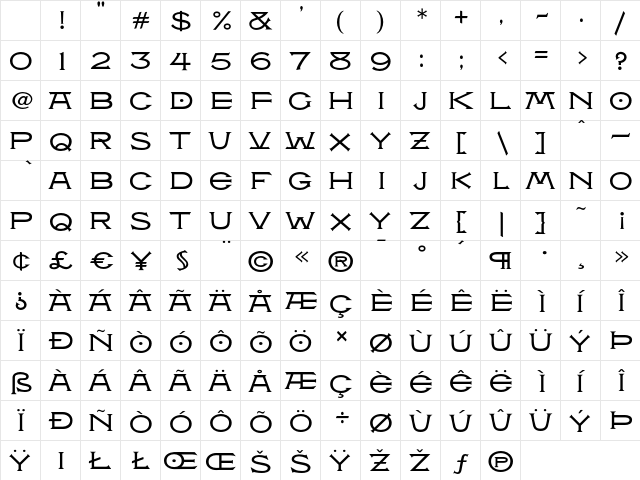
Complete P22Victorian Gothic glyph index. Displaying only characters natively supported by P22Victorian Gothic font.
P22Victorian takes a clean, functional approach - its unadorned letterforms prioritise legibility and work reliably across screen and print environments.